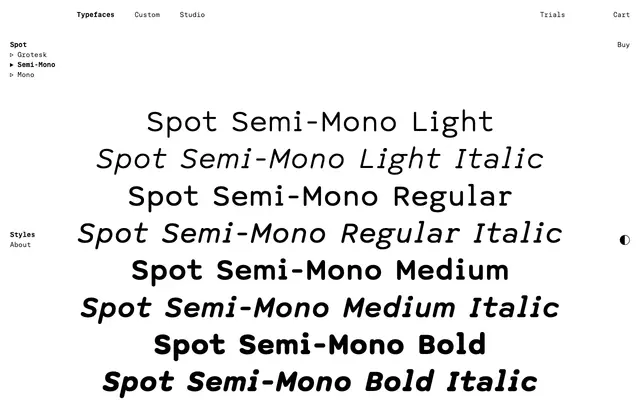
Spot Semi-Mono
Spot's hybrid flavour: a semi-monospaced typewriter-derived sans in four weights with italics, sitting between the proportional Grotesk and fixed-pitch Mono.
Spot Semi-Mono is the hybrid flavour of Spot, sitting between the proportional Spot Grotesk and the fixed-pitch Spot Mono. It keeps the family's uniform stroke width, rounded ends, distinctive dots and large x-height while widening narrow glyphs partway towards Mono proportions, useful for tabular layouts that still need rhythm. Four weights from Light to Bold with matching italics, Latin Extended language coverage, sub- and superscripts, fractions and a kit of icons round it out, and a Spot variable font ties Grotesk, Semi-Mono and Mono on a continuous spacing axis.
The hybrid between Spot Grotesk and Spot Mono; the foundry describe instances between the Grotesk and the Semi Mono in the variable font as producing tiny stubs on narrow glyphs that grow into wide bars in the Mono.